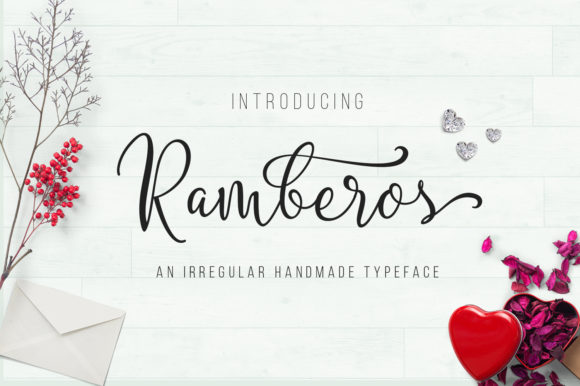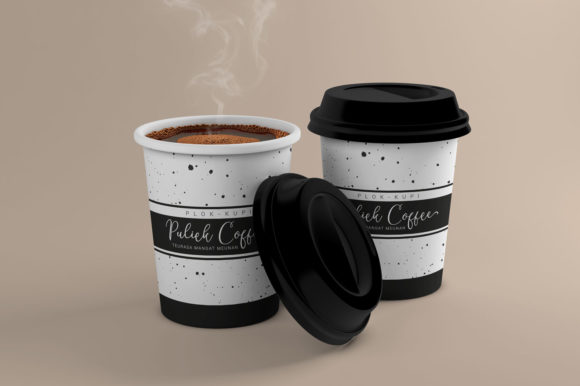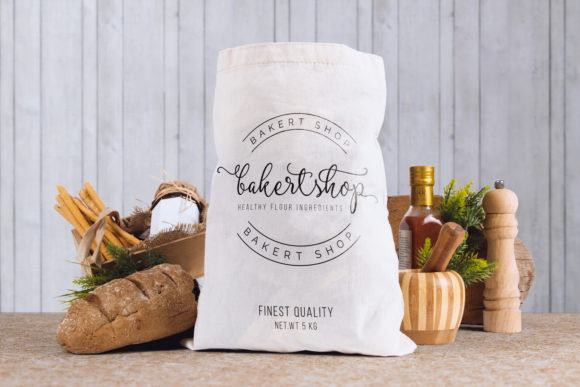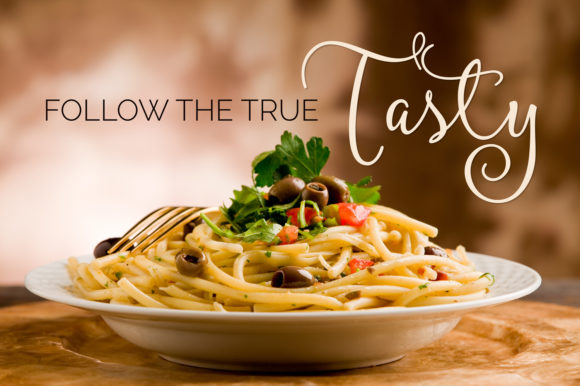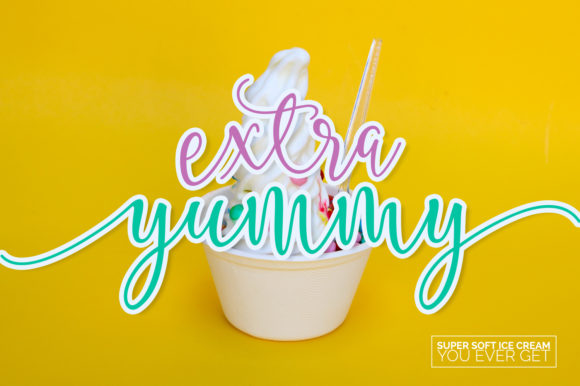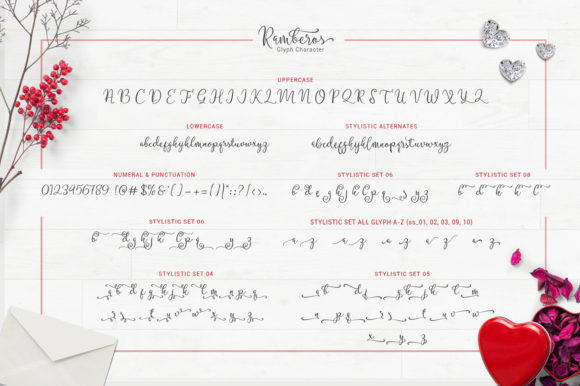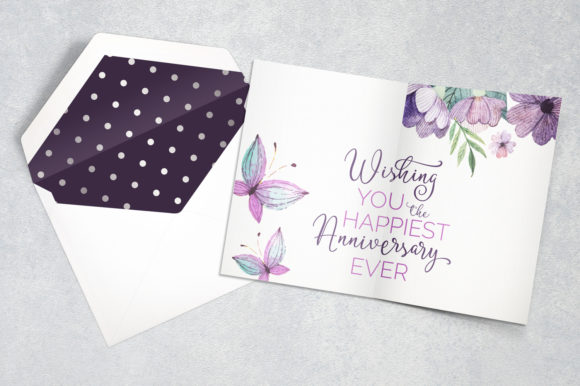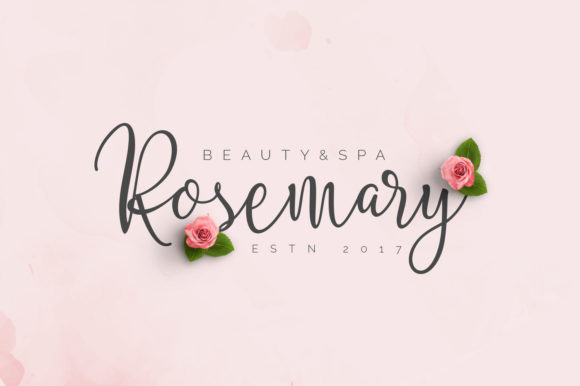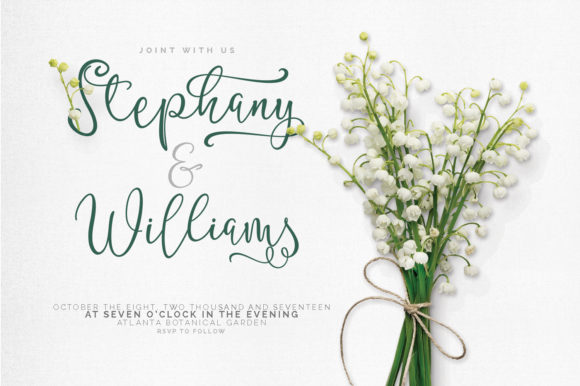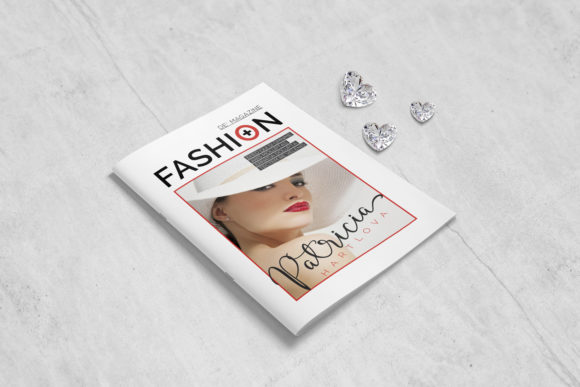
HomeScript FontsRamberos Font Script Fonts Ramberos Font FacebookXPinterestWhatsApp Ramberos Font Poster 2 Ramberos Font Poster 3 Ramberos Font Poster 4 Ramberos Font Poster 5 Ramberos Font Poster 6 Ramberos Font Poster 7 Ramberos Font Poster 8 Ramberos Font Poster 9 Ramberos Font Poster 10 Ramberos Font Poster 11 Ramberos Font Poster 12 Ramberos Font Poster 13 Ramberos Font Poster 14 About Ramberos Font Ramberos is a classic crafting font that will easily take any design project to the next level. DOWNLOAD ON CREATIVE FABRICAThis font is sold and delivered by Creative Fabrica. Font Canyon may earn a commission if you buy through this link. People also explored Baby Aliens Font Hailey Font Batik Festival Font Rockmore Font Little Blood Font Geriy and Reika Font Hanging Font Schulze Werbekraft Font Sunday Font 287 0 TagsRamberos Font Previous articleDanisya FontNext articleGirlz in Hell Font LEAVE A REPLY Cancel reply Comment: Please enter your comment! Name:* Please enter your name here Email:* You have entered an incorrect email address! Please enter your email address here Website: Save my name, email, and website in this browser for the next time I comment. Personal Use Free Abingdon Personal Use Free Read more about this font Charletto Personal Use Free Read more about this font Fillguy Font Personal Use Free Read more about this font Anti Personal Use Free Read more about this font BLOG Transform Your Website: Elevate Your Typography with 7 Best Web Font Generators Are you ready to transform your website's typography from ordinary to extraordinary? Great! Today, we're diving into the world of web font generators, which... The 10 Best Handwriting Fonts to Add Personality to Your Designs Elegant Wedding Invitation Fonts – Handwritten & Script Fonts Best Fonts for YouTube Videos: Make Your Thumbnails Stand Out